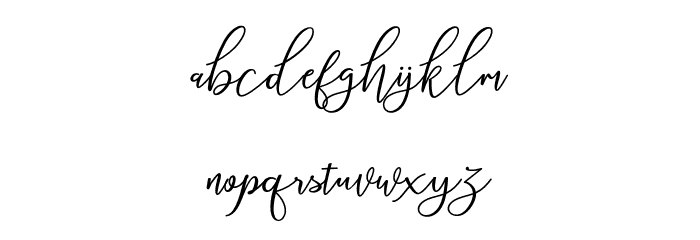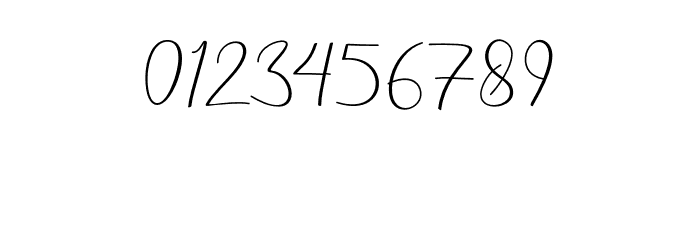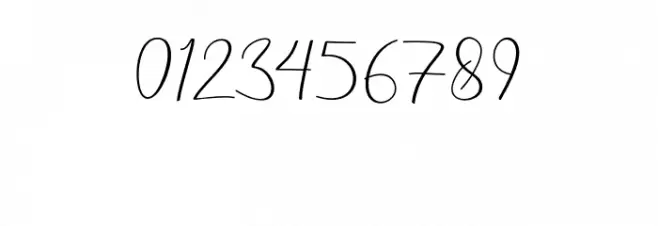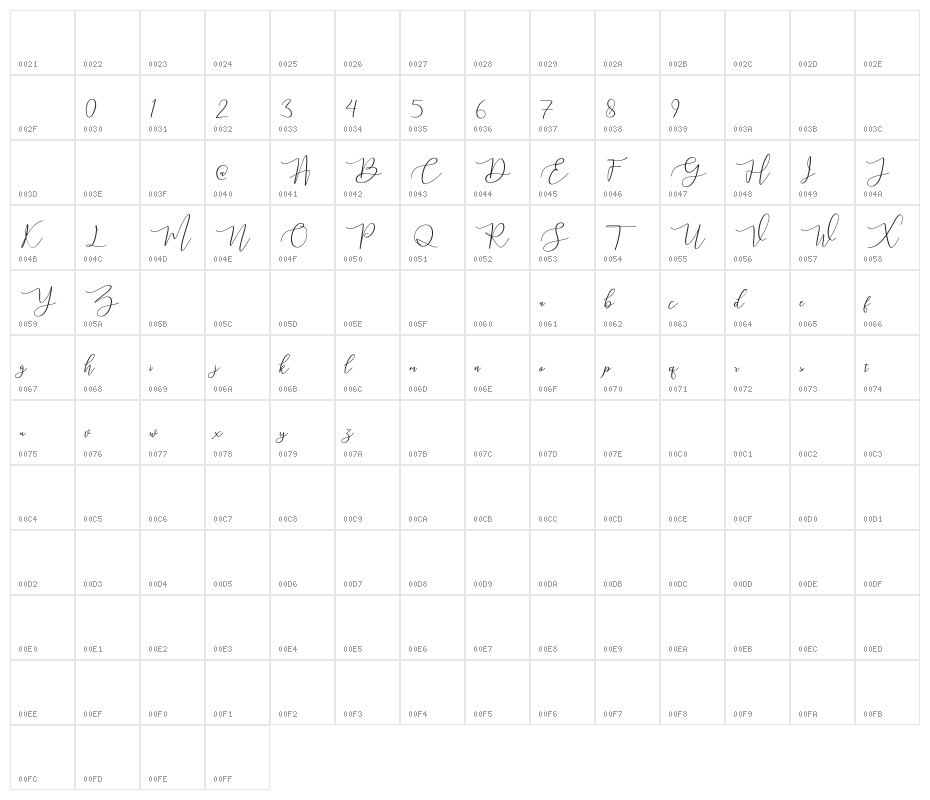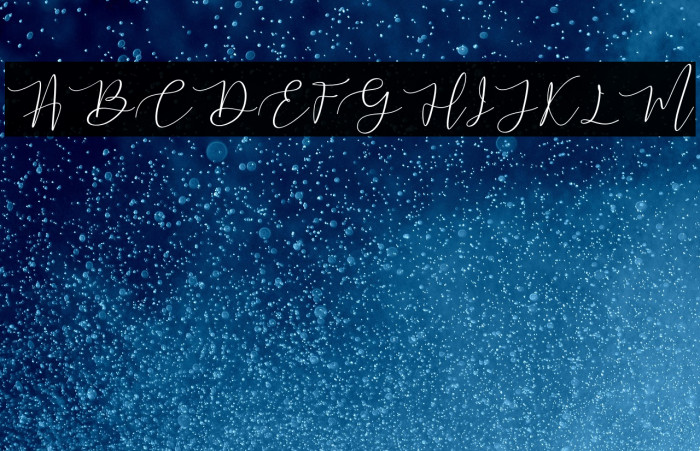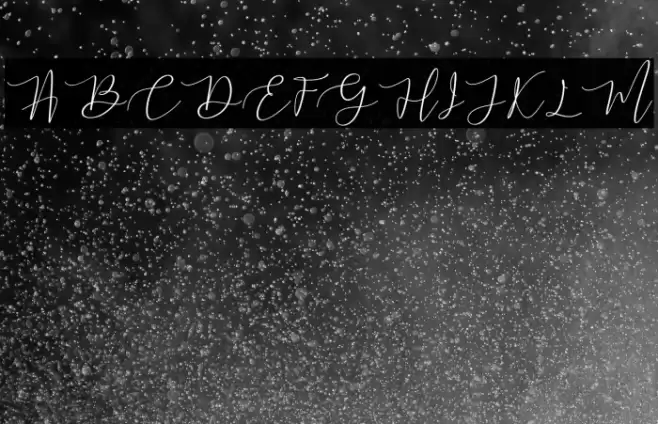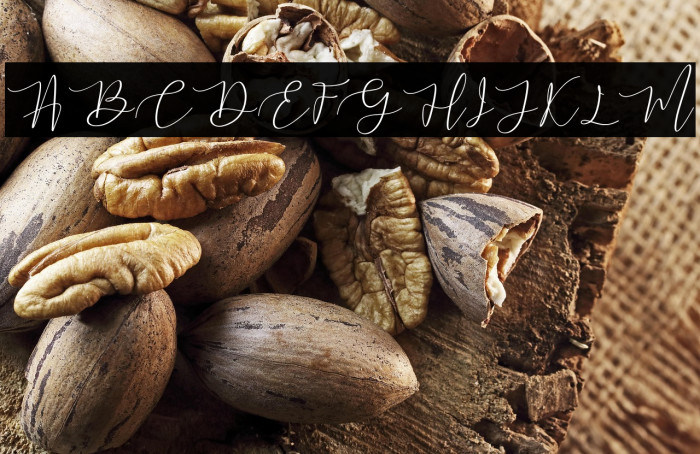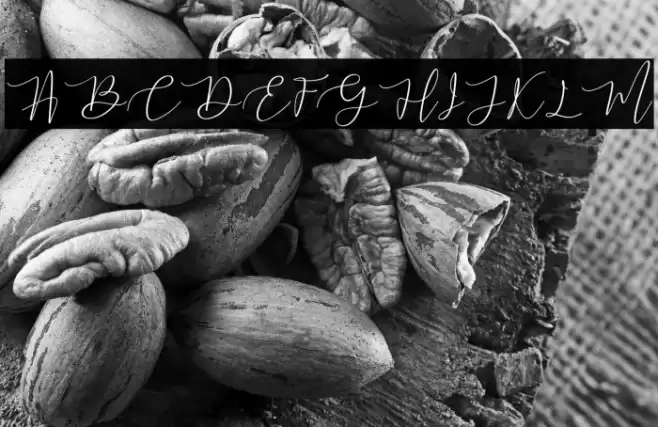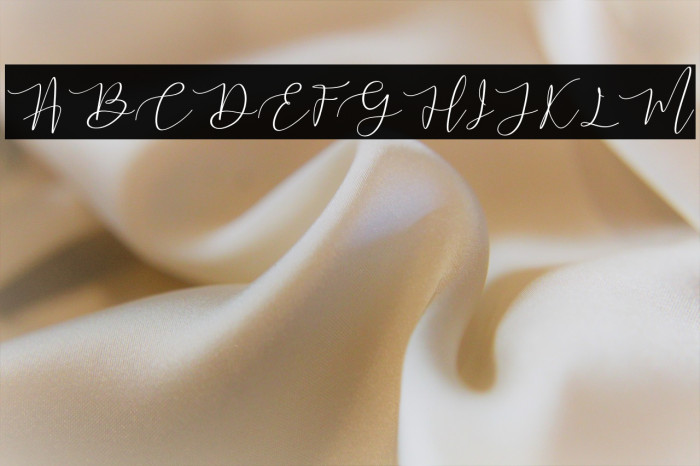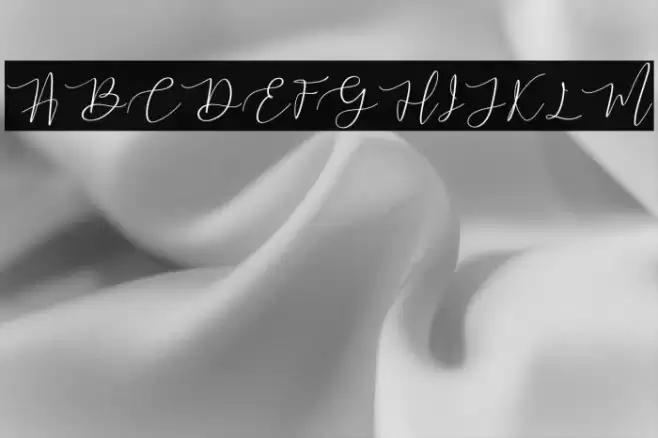
mahligai Font
This elegant script font features a flowing, cursive style with delicate, thin strokes that give it a graceful and sophisticated appearance. The uppercase letters are characterized by their sweeping curves and loops, creating a sense of fluidity and movement. The lowercase letters maintain a consistent style, with some letters featuring unique flourishes that add a touch of whimsy. The numerals are designed with a similar elegance, maintaining the overall aesthetic of the font. This font is perfect for projects that require a touch of class and refinement.
An elegant, flowing script font with graceful, thin strokes and whimsical flourishes.
- Font: mahligai
- Proposed Projects: Ideal for wedding invitations, elegant branding, personal stationery, and decorative quotes.
- Category: Script
- Overall Style: Elegant, Sophisticated
- Use Case: Logos, Invitations, Decorative text